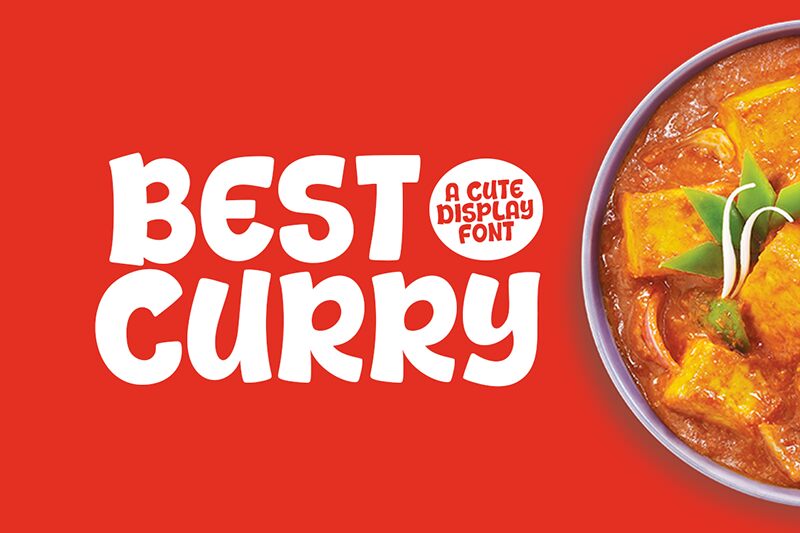
Best Curry
Best Curry font by Khurasan is a display cartoon font with a bold appearance. Its rounded figures and pleasing casual vibe along with the friendly tone give it a retro feel that makes this font flow beautifully. Best Curry is modern, and youthful, and will bring life to any project that you decide to use it in.